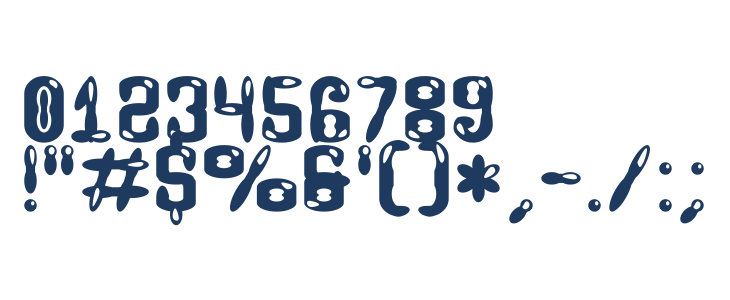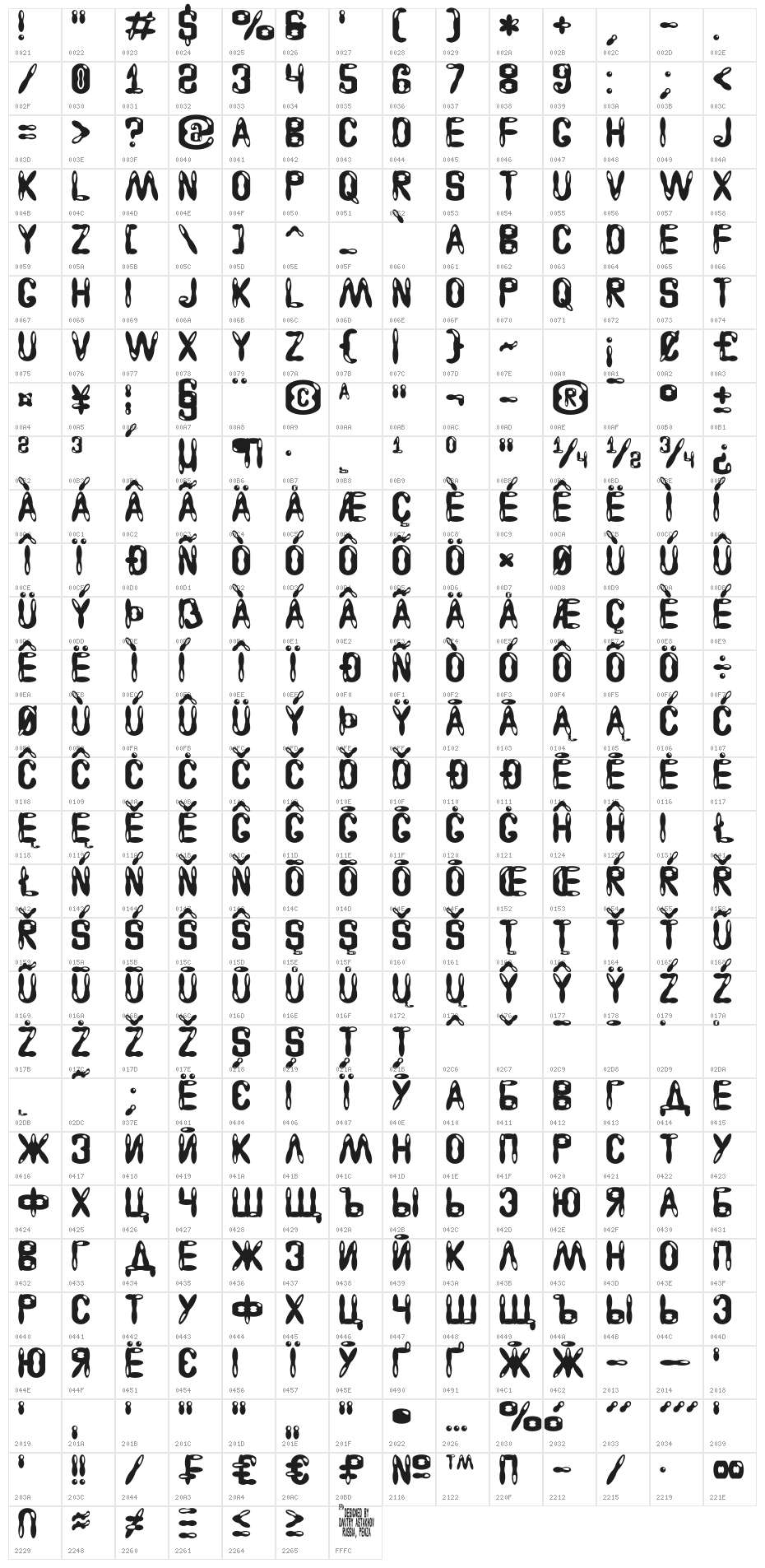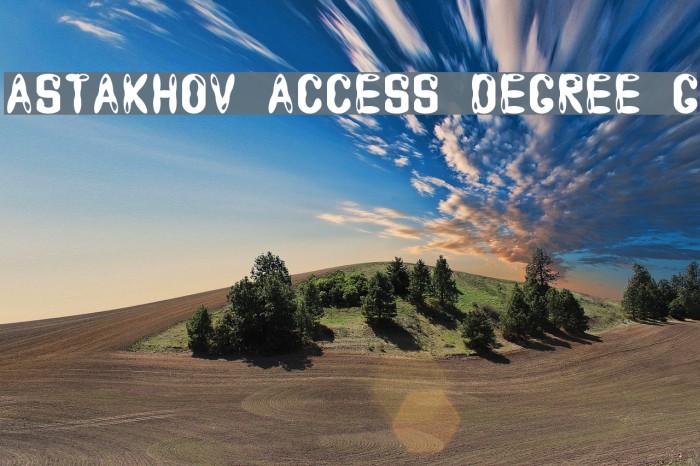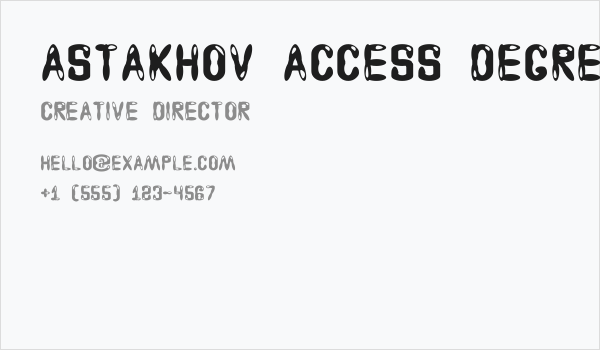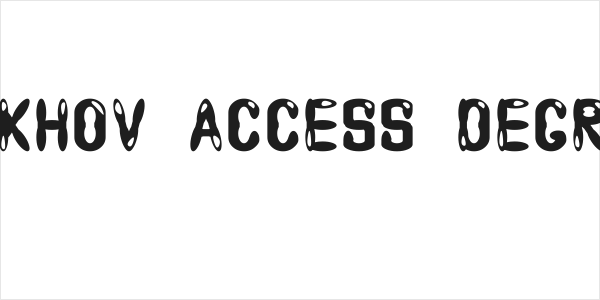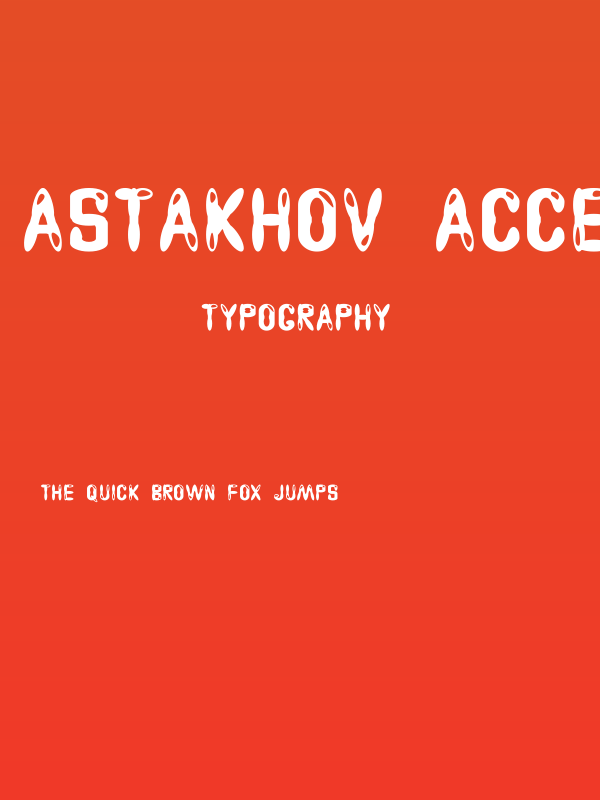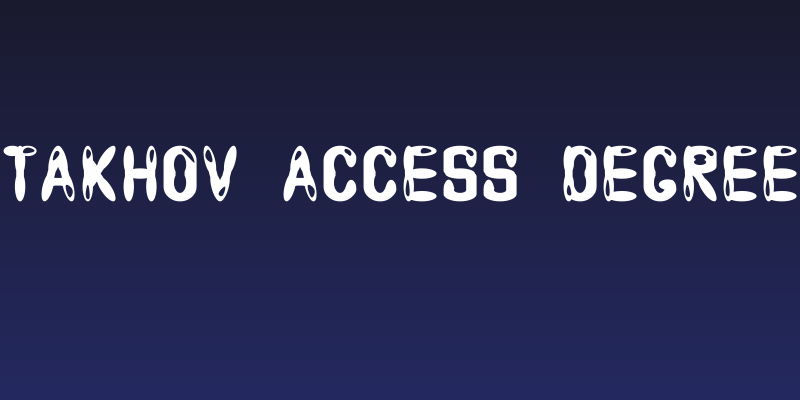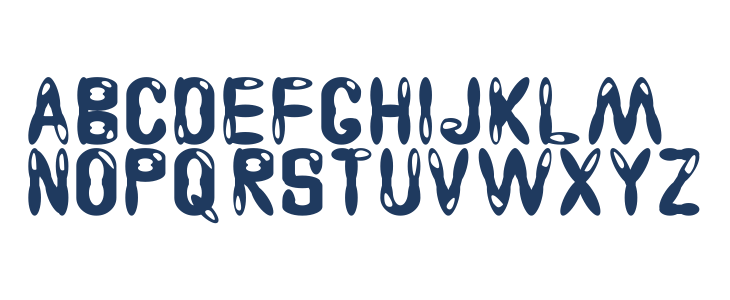
Astakhov Access Degree G Font
Astakhov Access Degree G Description
This font features a bold and playful design with a unique, organic appearance. Each character is crafted with thick strokes and irregular, blob-like shapes that give it a whimsical and artistic feel. The letters have a consistent weight throughout, with rounded edges and a slightly distorted form that adds to its quirky charm. The numbers and special characters maintain this style, ensuring a cohesive look across all glyphs. This font is eye-catching and ideal for creative projects that require a fun and unconventional typeface.
| Proposed Projects | Ideal for children's books, playful branding, creative posters, and artistic designs. |